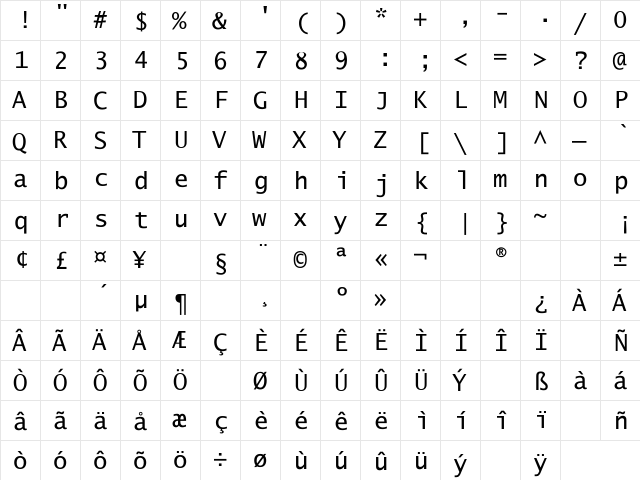
Saintgermain Regular
Design Context for Saintgermain Typeface
Saintgermain takes a measured approach to typography — its balanced proportions and neutral character make it a reliable workhorse for both digital and print work.